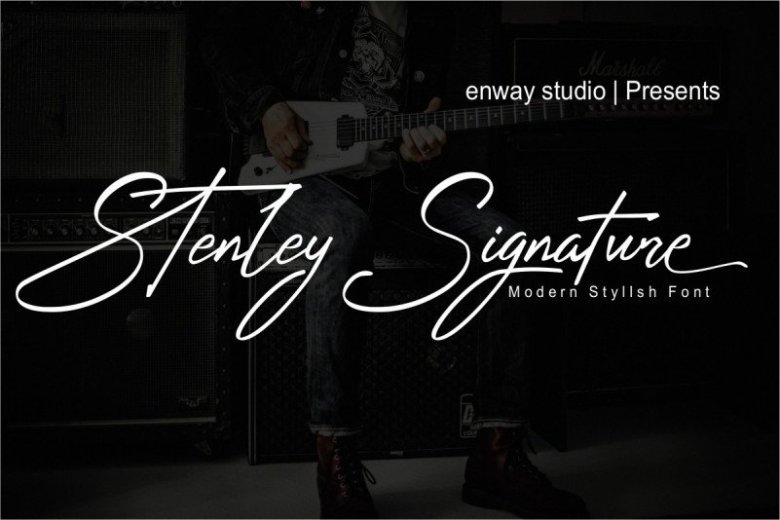
Stenley Signature Font
stenley Font
Stenley Signature Script Font, designed by enway studio is a quality script that is written casually and quickly. This typeface has been added with various alternative characters. This type of writing is perfect for logos, fashion, stationery, magazines, menus, books, invitations, greeting cards, packaging, labels, clothing, marketing, business cards, etc.